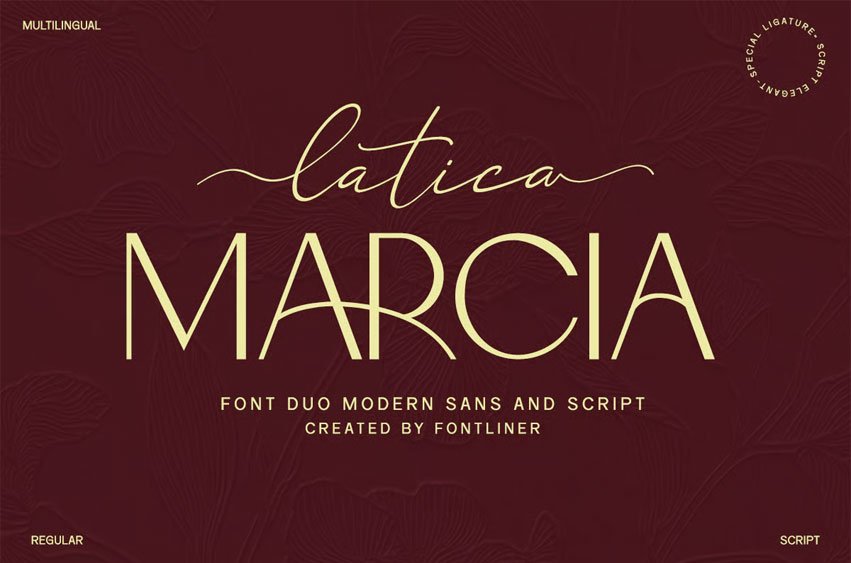
Latica Marcia Font is a modern font duo that beautifully combines a clean sans-serif system with elegant handwriting. This combination creates a perfect harmony between structure and expression, where the sans-serif brings clarity and professionalism, while the script adds a touch of personality and artistic flair. The flowing strokes and gentle curves of the script style lend a natural and distinctive touch to your designs.
Designed for versatility, Latica Marcia is ideal for branding, logos, social media, wedding invitations, and lifestyle design projects. The additional ligatures enhance the authenticity of the writing, allowing for smooth letter connections and more natural typographic compositions. Whether you’re aiming for a modern minimalist look or a romantic aesthetic, this duo adapts effortlessly.
Thanks to its balanced contrast and elegant character, Latica Marcia allows designers to create visually striking and moving designs, giving each project a more refined, expressive and memorable look.
- Stylistic alternatives
- Capital letters, lowercase letters and ligatures
- Symbol, number and multilingual support